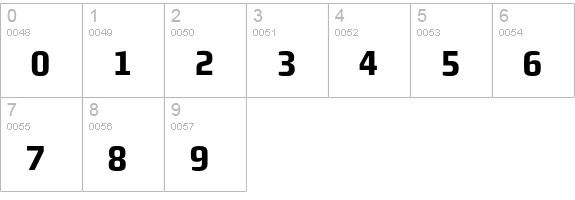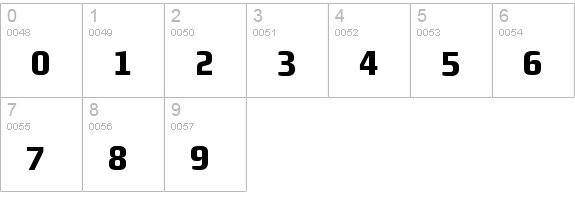
MorganSansCond BoldCaps Font Details
MorganSansCond BoldCaps font is a stunning display typeface that exudes sophistication and modernity. Its bold and striking appearance makes it perfect for creating eye-catching headlines, titles, and logos. The unique combination of sharp edges and clean lines gives this font a contemporary and sleek look that is sure to make your designs stand out. The best part? MorganSansCond BoldCaps font is available for free download at FontsMarket.com. Now you can access this premium font without breaking the bank. Whether you're working on a branding project, advertising campaign, or any other design endeavor, MorganSansCond BoldCaps font is a versatile and stylish choice that will elevate your work to the next level. Don't miss out on the opportunity to enhance your designs with the bold and captivating MorganSansCond BoldCaps font. Download it for free today and unlock a world of creative possibilities!